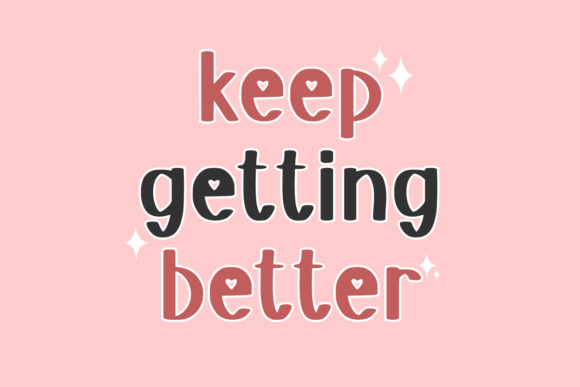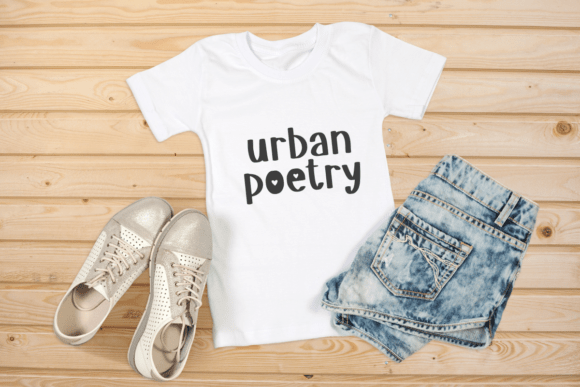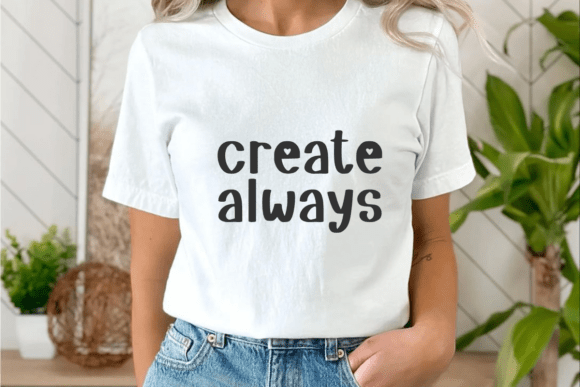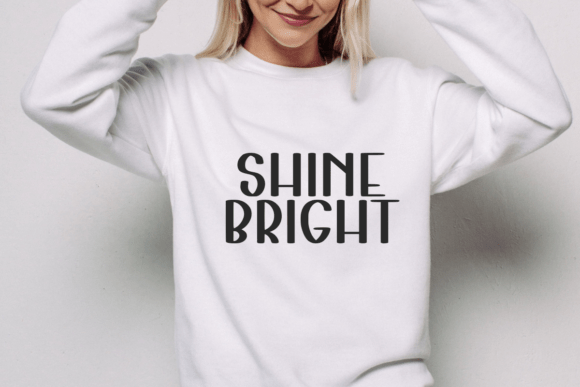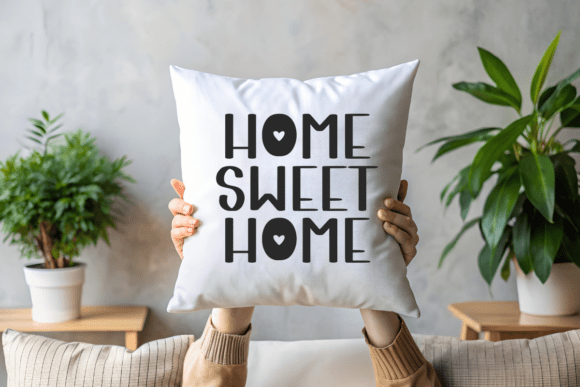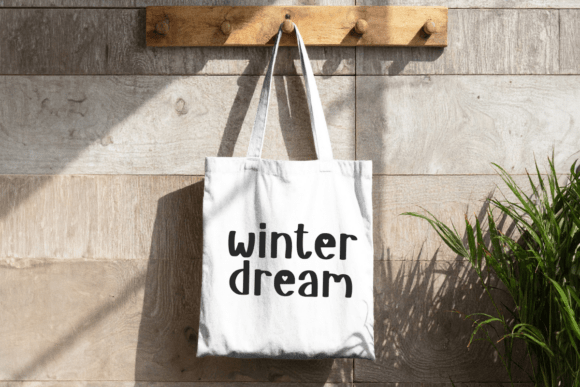
Introducing Blushing Letters Font: The Ultimate Choice for Playful and Whimsical Designs
Are you tired of using the same old fonts for your designs? Look no further! Blushing Letters Font is here to bring a fresh and playful touch to your creative projects. This soft, friendly, and immensely huggable sans serif font is perfect for designers and crafters who want to add a dash of whimsy and charm to their work.
The Characteristics of Blushing Letters Font
Blushing Letters font features rounded terminals and a slightly plump silhouette that feels approachable and kind. The subtle offset shadow/layering effect in the preview gives it a unique and versatile look, making it suitable for a wide range of design applications. The font’s playful energy is sure to capture the attention of your audience and leave a lasting impression.
Perfect for Youth-Oriented Branding and Designs
The Blushing Letters typeface is designed with youth-oriented branding in mind. Its bubbly and cheerful vibe makes it perfect for designs that require a fun and playful touch. Whether you’re creating stickers, nursery wall art, or bakery branding, this font is sure to convey a sense of sweetness and warmth.
Readability and Versatility
One of the standout features of Blushing Letters font is its incredible readability. The font is designed to be easy to read, making it suitable for both headlines and short bursts of body text. This versatility makes it perfect for a wide range of design applications, from social media graphics to signage and packaging.
Design Inspiration and Pairing Suggestions
Blushing Letters font pairs beautifully with simple line-art illustrations and pastel color palettes to create a cohesive, charming aesthetic. Try using it for social media graphics, nursery wall art, or bakery branding where you want to convey a sense of sweetness and warmth. The font’s playful energy is sure to complement a wide range of design styles, from minimalist to playful and whimsical.
Why Choose Blushing Letters Font?
So why choose Blushing Letters font for your next design project? Here are just a few reasons:
- Unique and Playful Energy: Blushing Letters font brings a fresh and playful touch to any design project.
- Incredible Readability: The font is designed to be easy to read, making it suitable for both headlines and short bursts of body text.
- Versatility: The font’s subtle offset shadow/layering effect makes it suitable for a wide range of design applications, from bubble-style designs to stickers and youth-oriented branding.
- Easy to Pair: Blushing Letters font pairs beautifully with simple line-art illustrations and pastel color palettes to create a cohesive, charming aesthetic.
Get Creative with Blushing Letters Font
Whether you’re a designer, crafter, or DIY enthusiast, Blushing Letters font is the perfect choice for your next creative project. With its playful energy, incredible readability, and versatility, this font is sure to bring a smile to your audience’s face. So why wait? Download Blushing Letters font today and get creative!
In conclusion, Blushing Letters font is a must-have for designers and crafters who want to add a touch of whimsy and charm to their work. Its unique and playful energy, incredible readability, and versatility make it the perfect choice for a wide range of design applications. Whether you’re creating social media graphics, nursery wall art, or bakery branding, Blushing Letters font is sure to bring a fresh and playful touch to your designs.